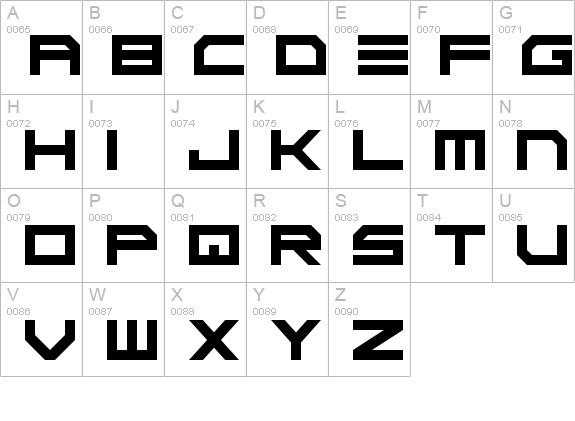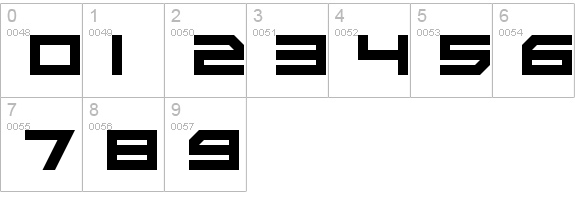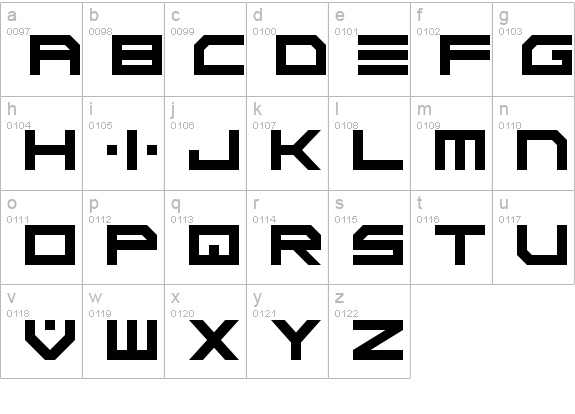
Scifi Adventure Font Details
Scifi Adventure is a free for personal use font in the Modern > Sci-Fi category, designed by Darrell Flood. It has been downloaded 142 times and is available for Windows, Mac and Linux.
Embark on a thrilling journey through the vast expanse of the cosmos with Scifi Adventure font. This futuristic typeface captures the essence of space exploration and technological innovation, with sleek lines and sharp angles that evoke a sense of wonder and excitement. Whether you're designing a sci-fi novel cover, creating a futuristic poster, or working on a space-themed project, Scifi Adventure font will transport your audience to distant galaxies and unknown worlds.
What sets Scifi Adventure font apart is its versatility and adaptability to various design projects. Its bold and dynamic style makes it perfect for conveying a sense of adventure and discovery. From sleek spaceships to high-tech interfaces, this font is sure to enhance the visual impact of your creations.